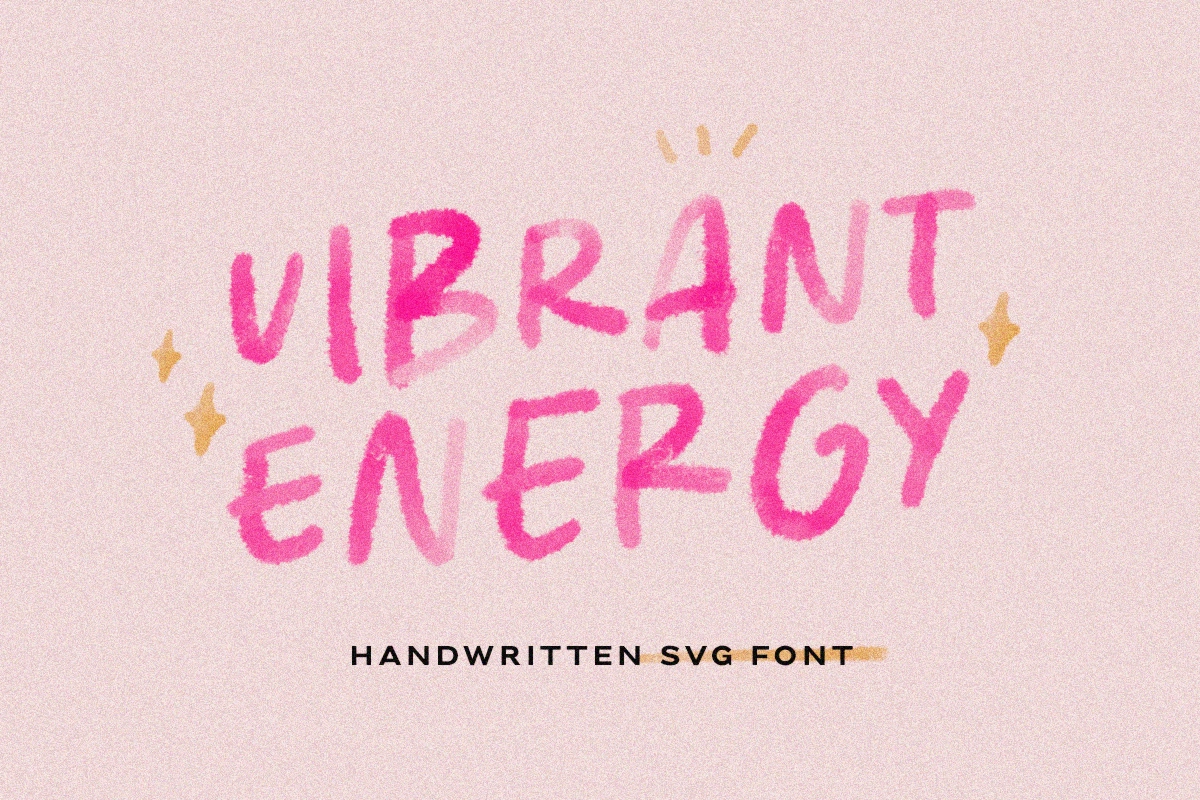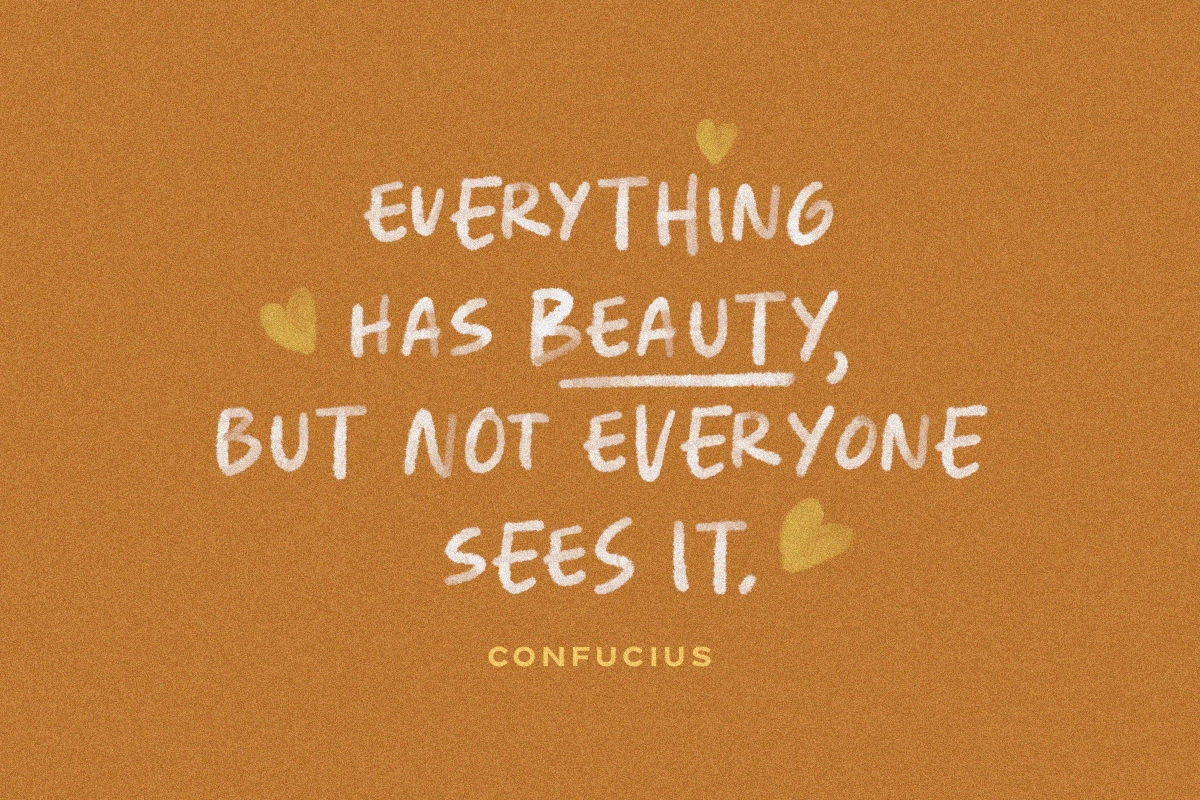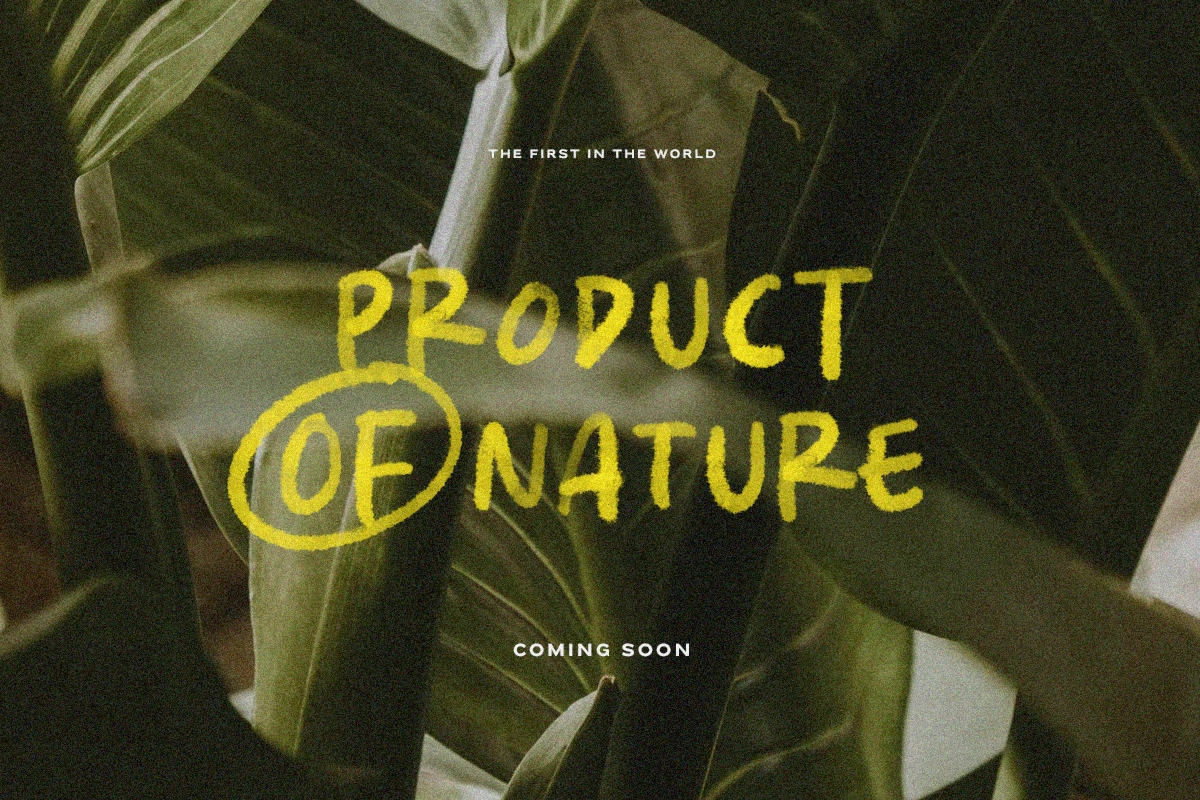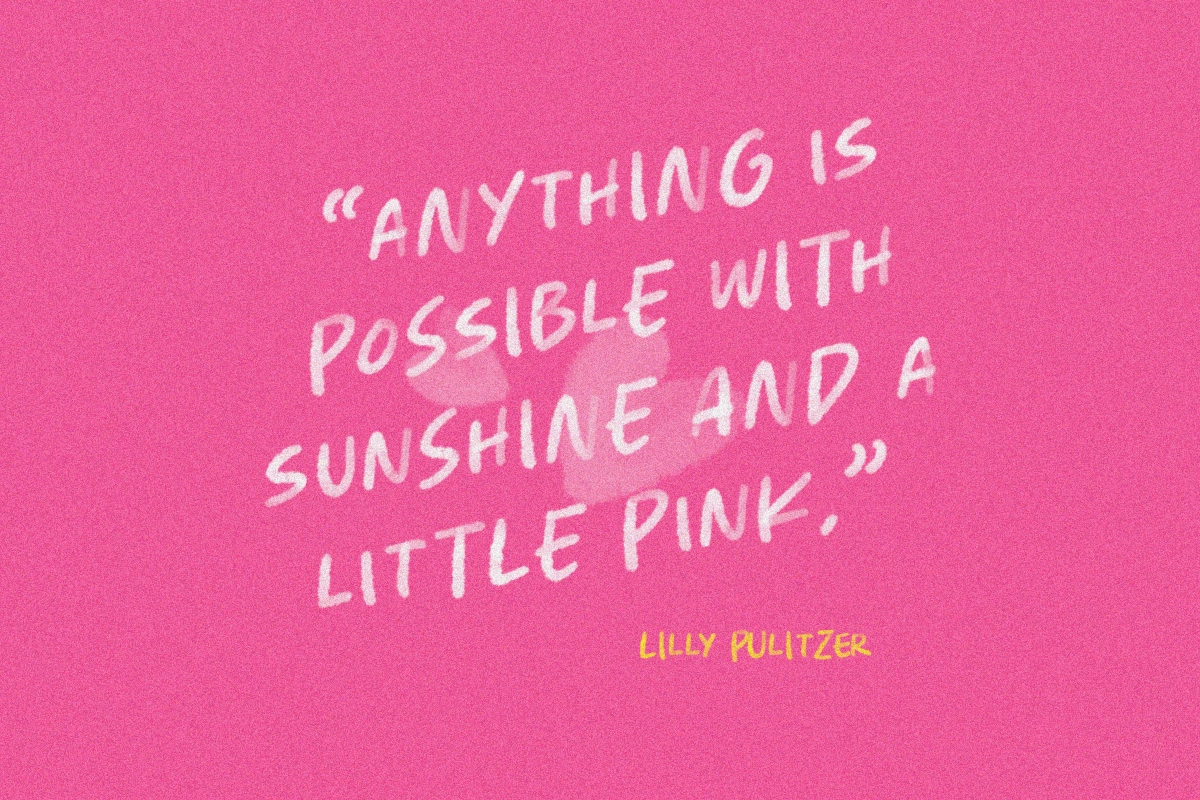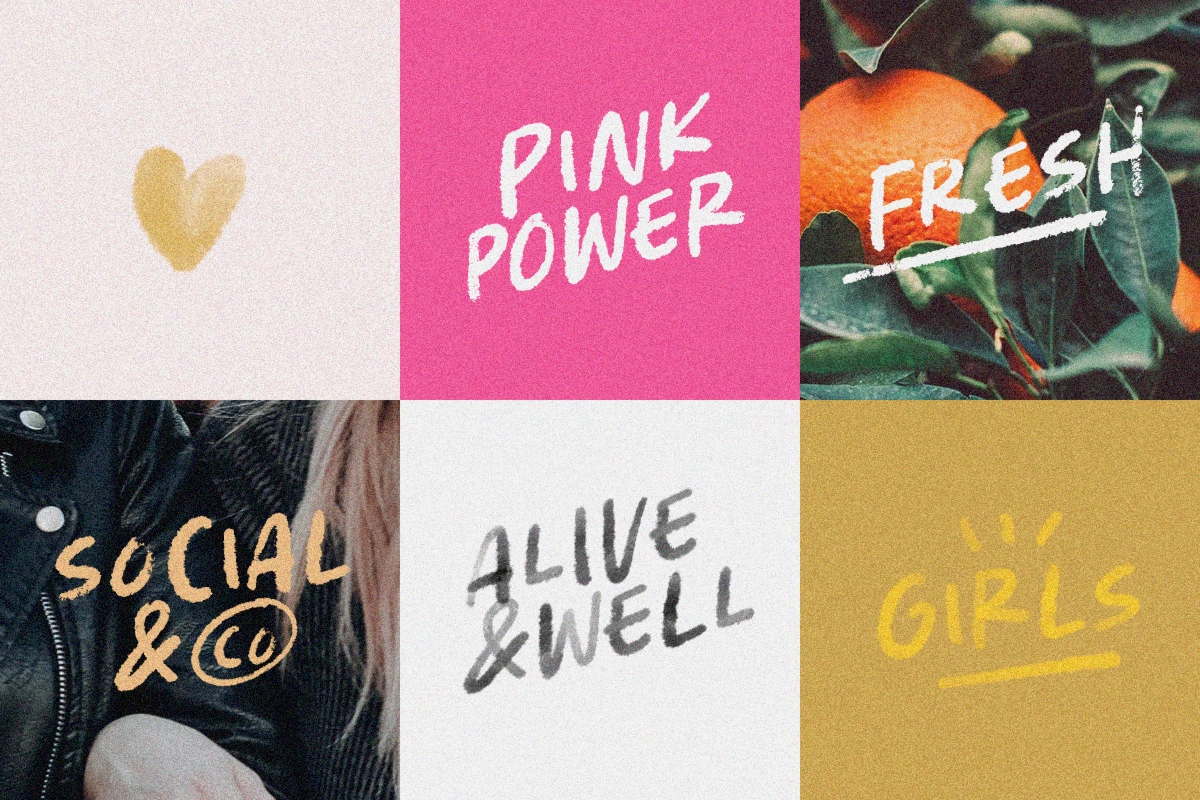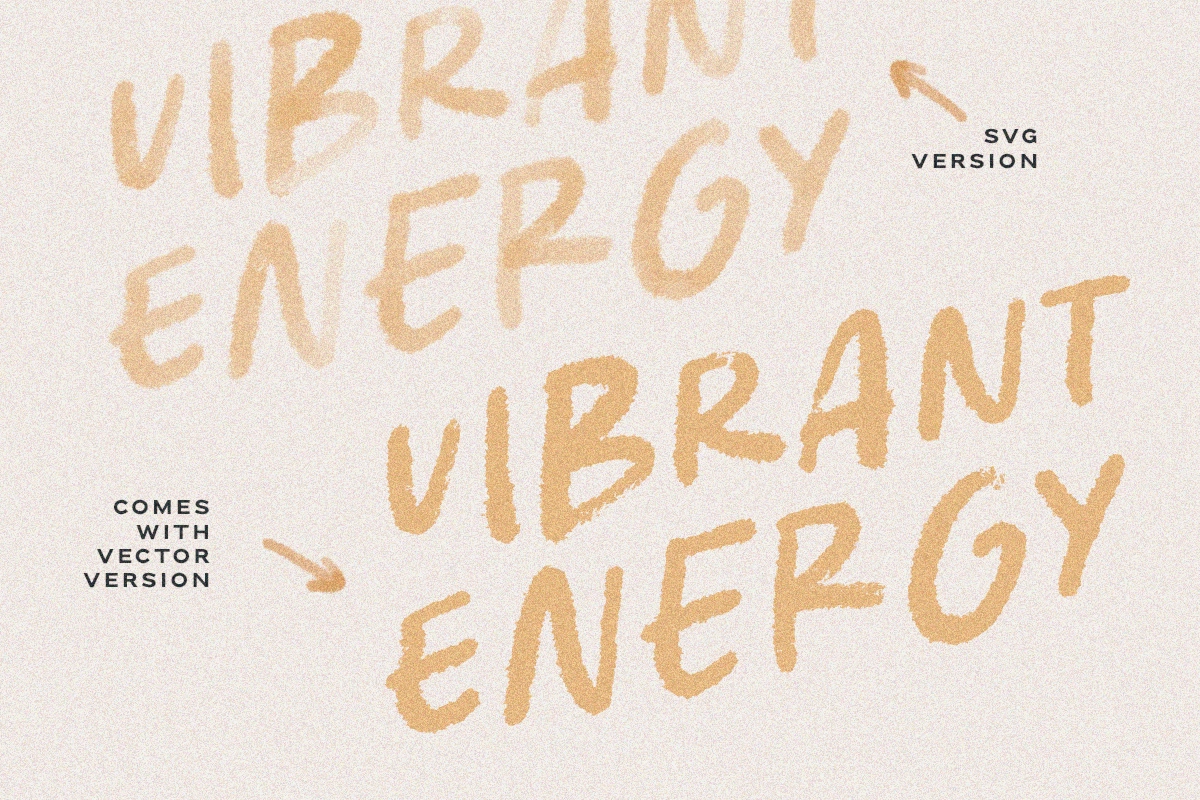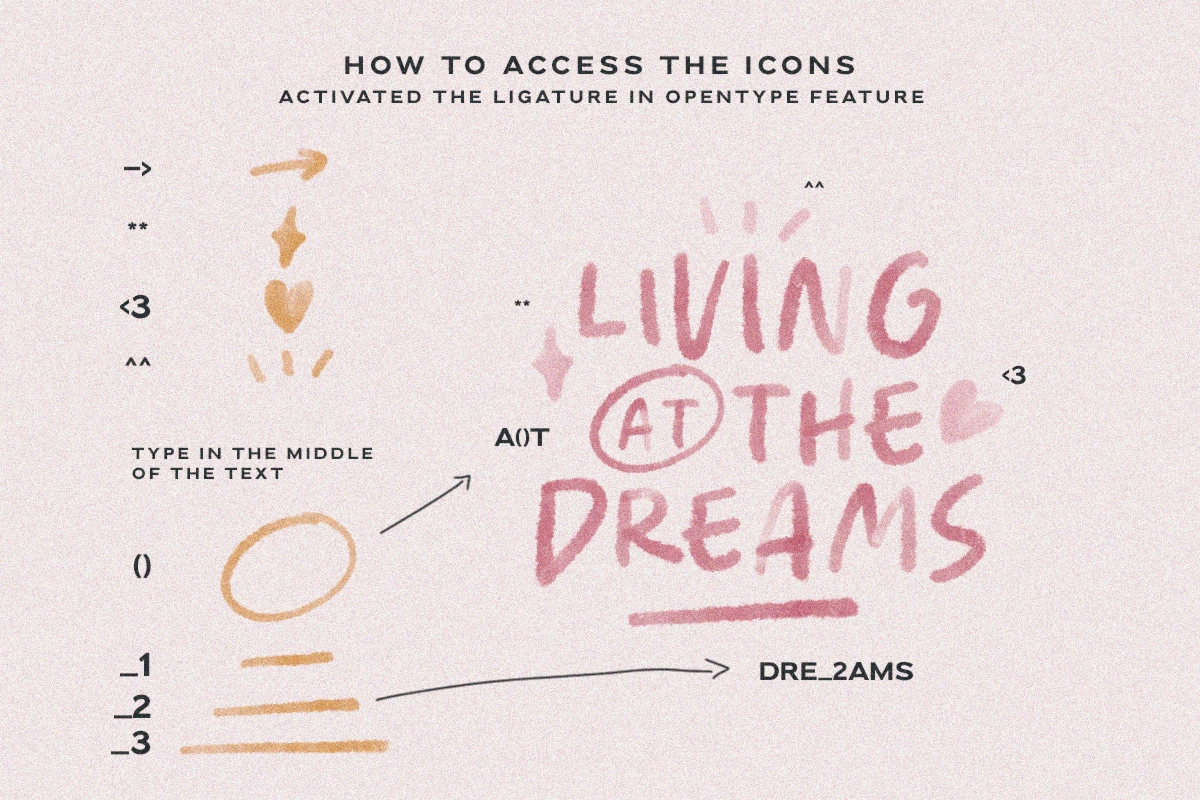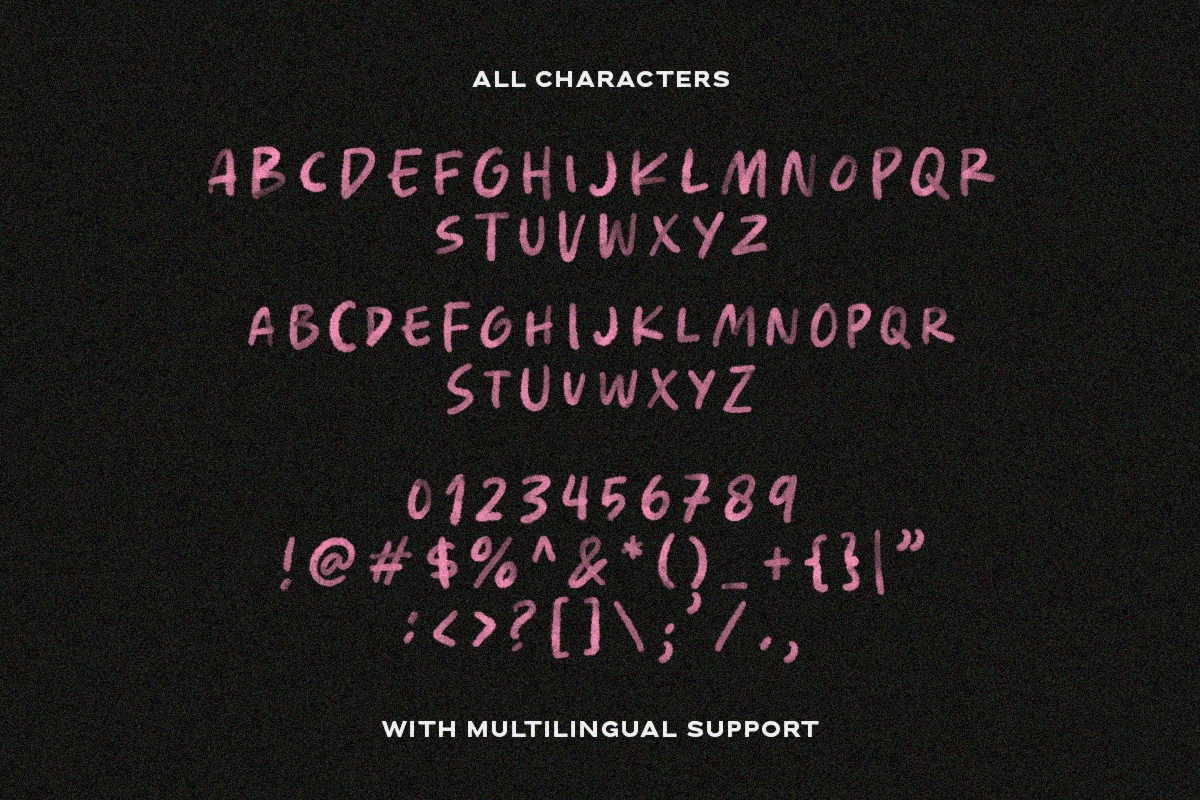
Vibrant Energy - Quotable SVG Font
Vibrant Energy is a quotable SVG Font . Comes with SVG format (SVG, OTF) and also with a vector (OTF). Including different lowercase and uppercase that you can use randomly. By combining the uppercase and lowercase in a word, your design will looks more natural and handmade. The special part is, this font also contains some icons that will make your project more attractive. This font is suitable for quotes and more. Number, symbol, and another punctuation also included in this fonts. Support multilingual!